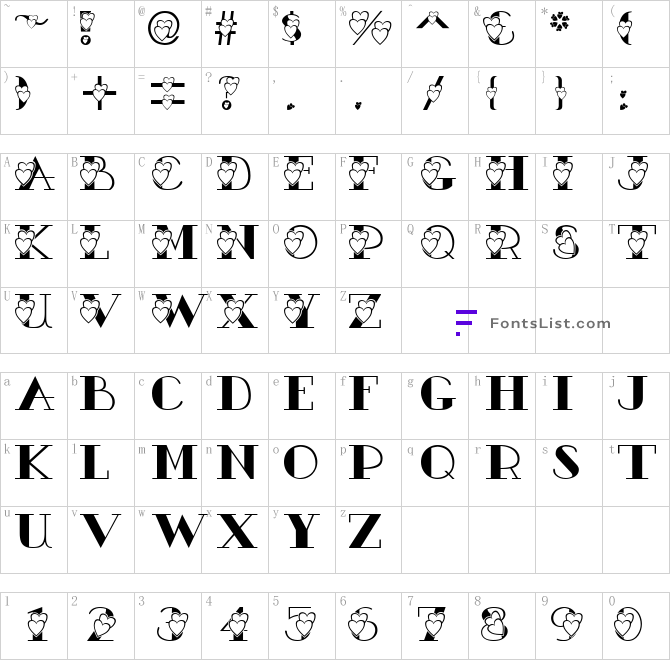
AC3-Hearts2.ttf is a very beautiful artistic font, AC3-Hearts2.ttf is widely used in the design and printing of various books and pictures,AC3-Hearts2.ttf has a strong visual impact,AC3-Hearts2.ttf is a commonly used font in newspapers, magazines and books, and is used in posters, e-commerce Poster design, store design, logo design, font design and other fields.AC3-Hearts2.